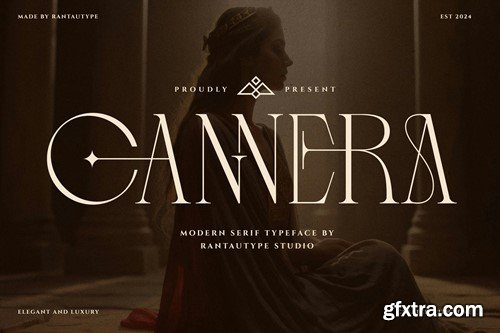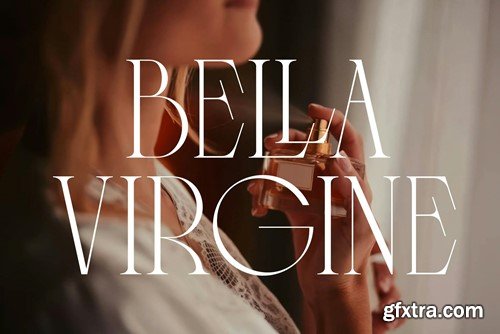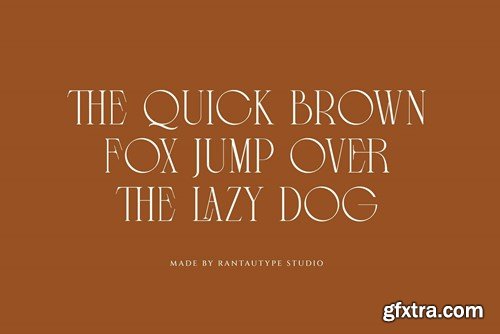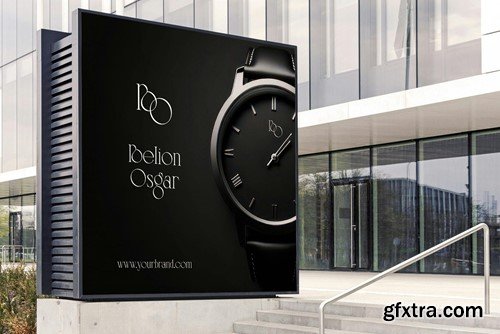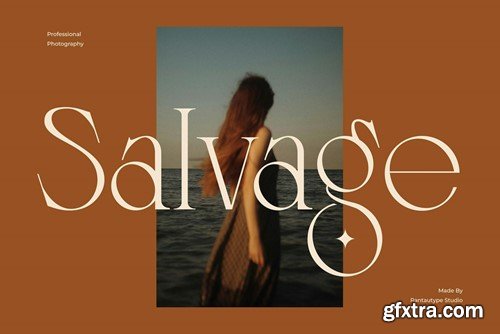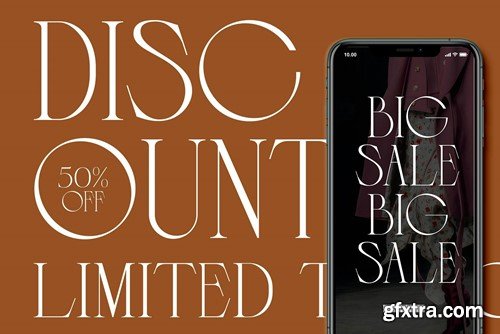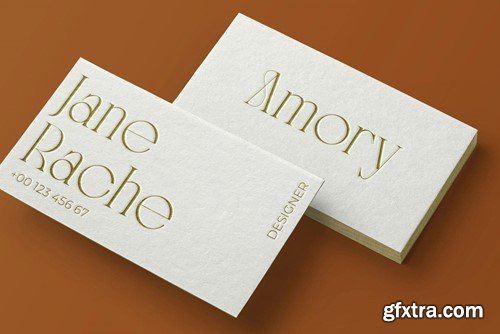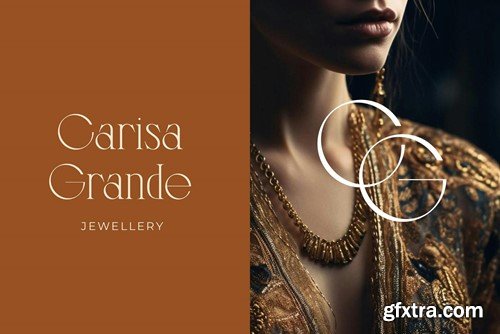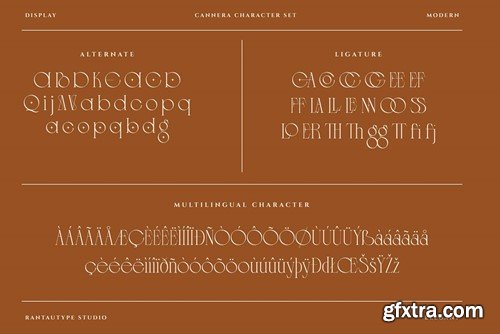
Cannera Modern Serif Font FFBRK9T
Cannera is modern serif font with beautiful ligature. Cannera inspire with luxury branding and trend visual design. Cannera is a perfectly choice for any creative endeavor, chic, lifestyle design such as logos, advertisements, watermark on photography, stationery, branding project, display and magazine, invitation, corporate brand, product design, label, business project and many other project with elegant touch. What you have: Fonts include Multilingual Character for: Afrikaans, Albanian, Asu, Basque, Bemba, Bena, Breton, Chiga, Cornish, Dutch, English, Estonian, Filipino, Finnish, Friulian, Galician, Gusii, Indonesian, Irish, Italian, Kabuverdianu, Kalenjin, Kinyarwanda, Luo, Luxembourgish, Luyia, Machame, Makhuwa-Meetto, Makonde, Malagasy, Manx, Morisyen, North, Ndebele, Nyankole, Oromo, Portuguese, Quechua, Romansh, Rombo, Rundi, Rwa, Samburu, Sango, Sangu, Scottish, Gaelic, Sena, Shambala, Shona, Soga, Somali, Spanish, Swahili, Swedish, Swiss, German. Thank you for your purchase! Hope you enjoy with our font!